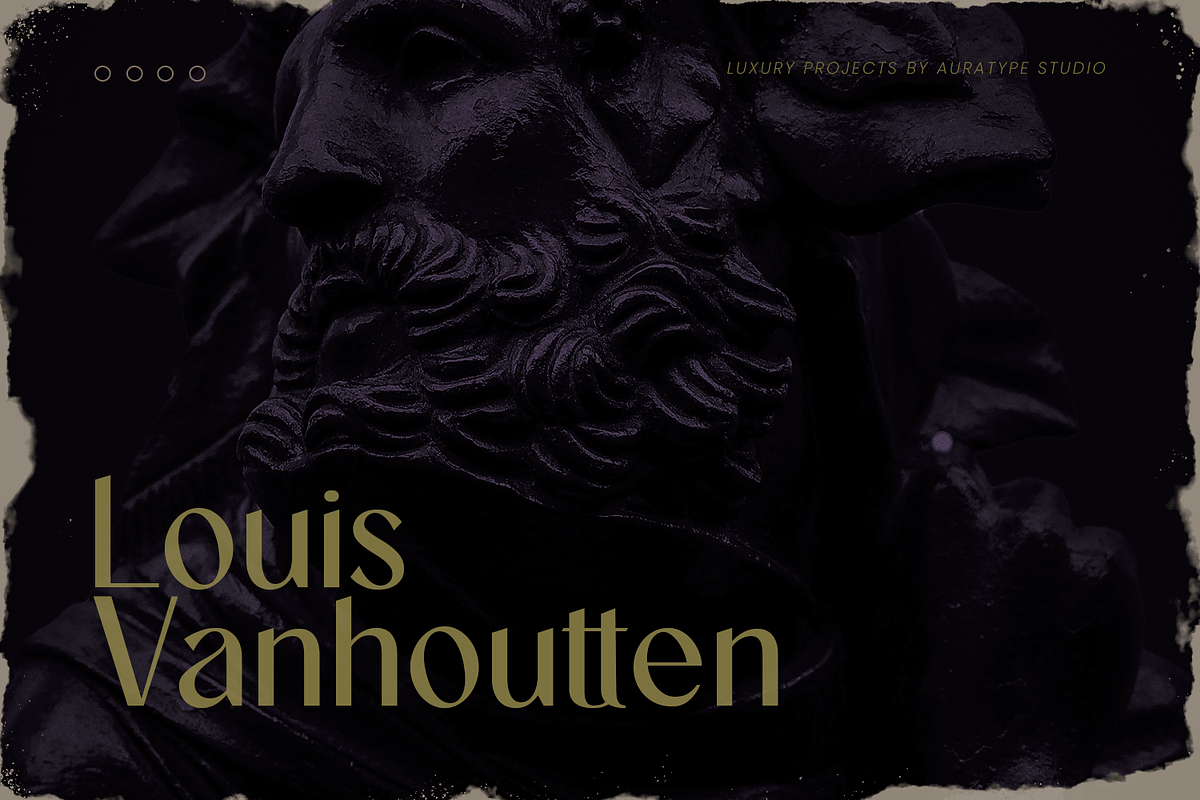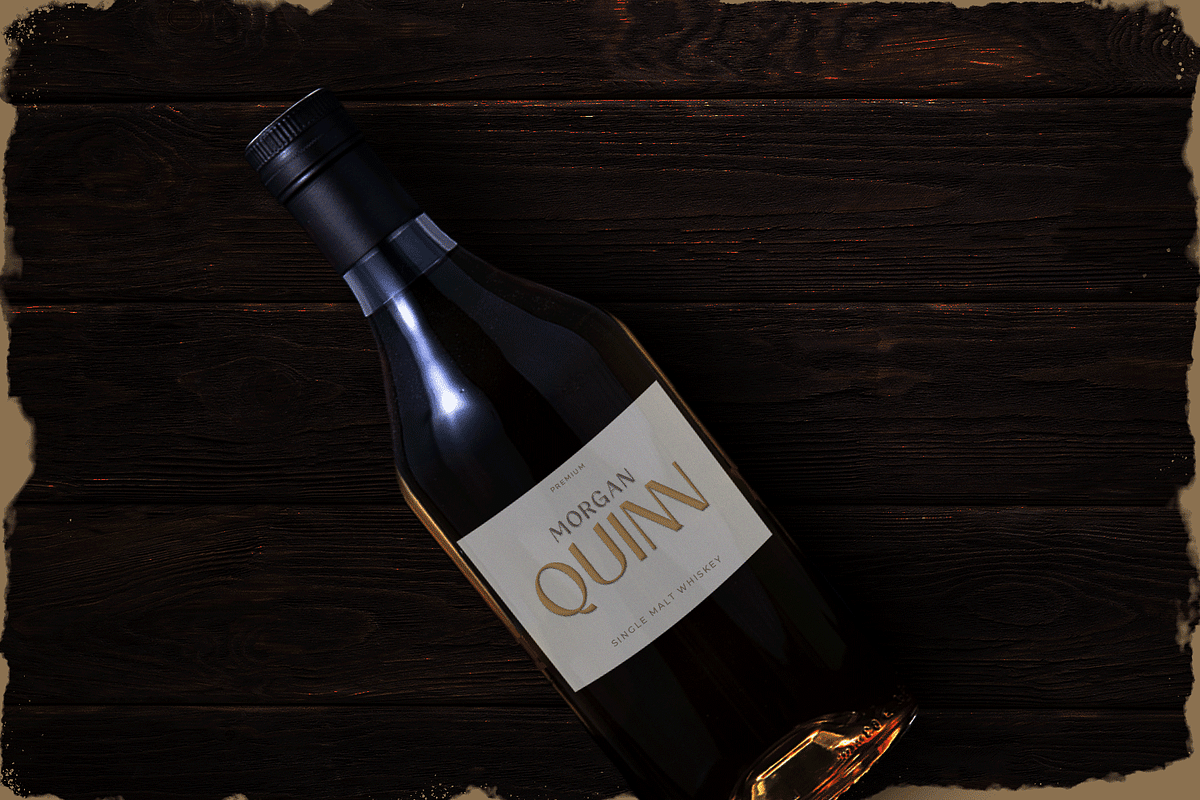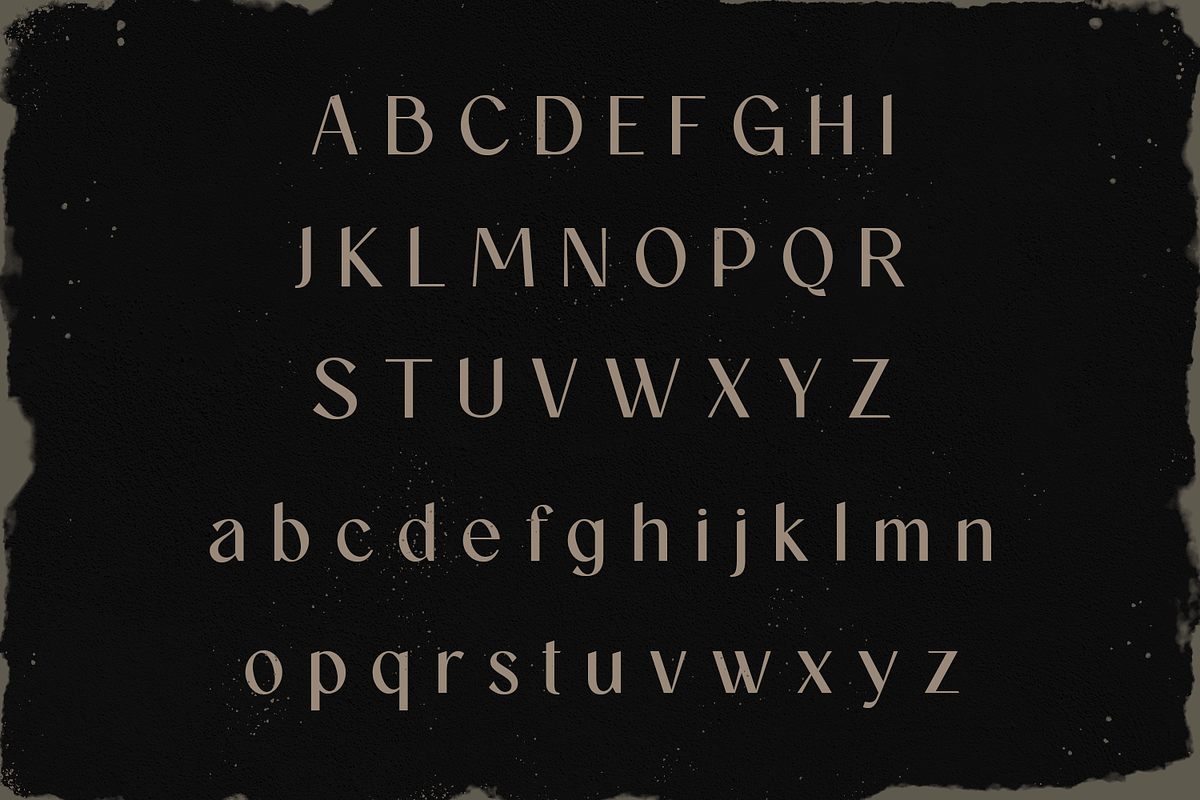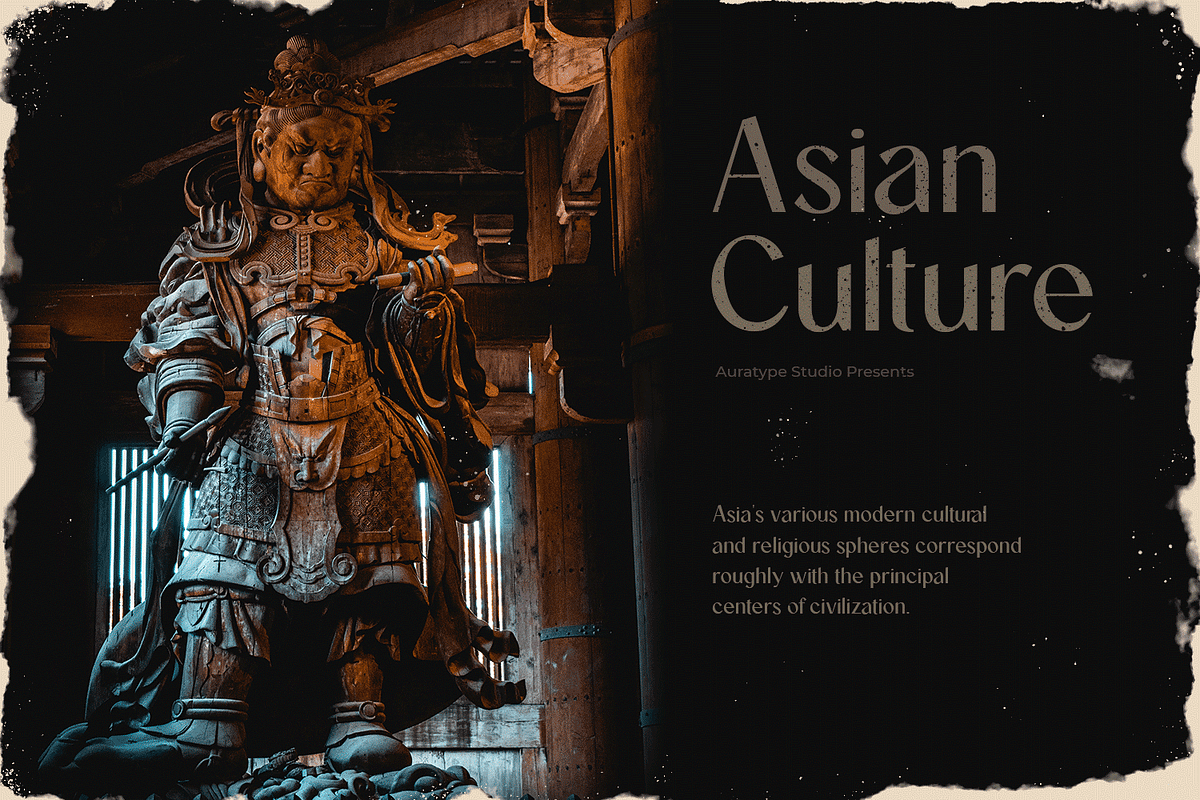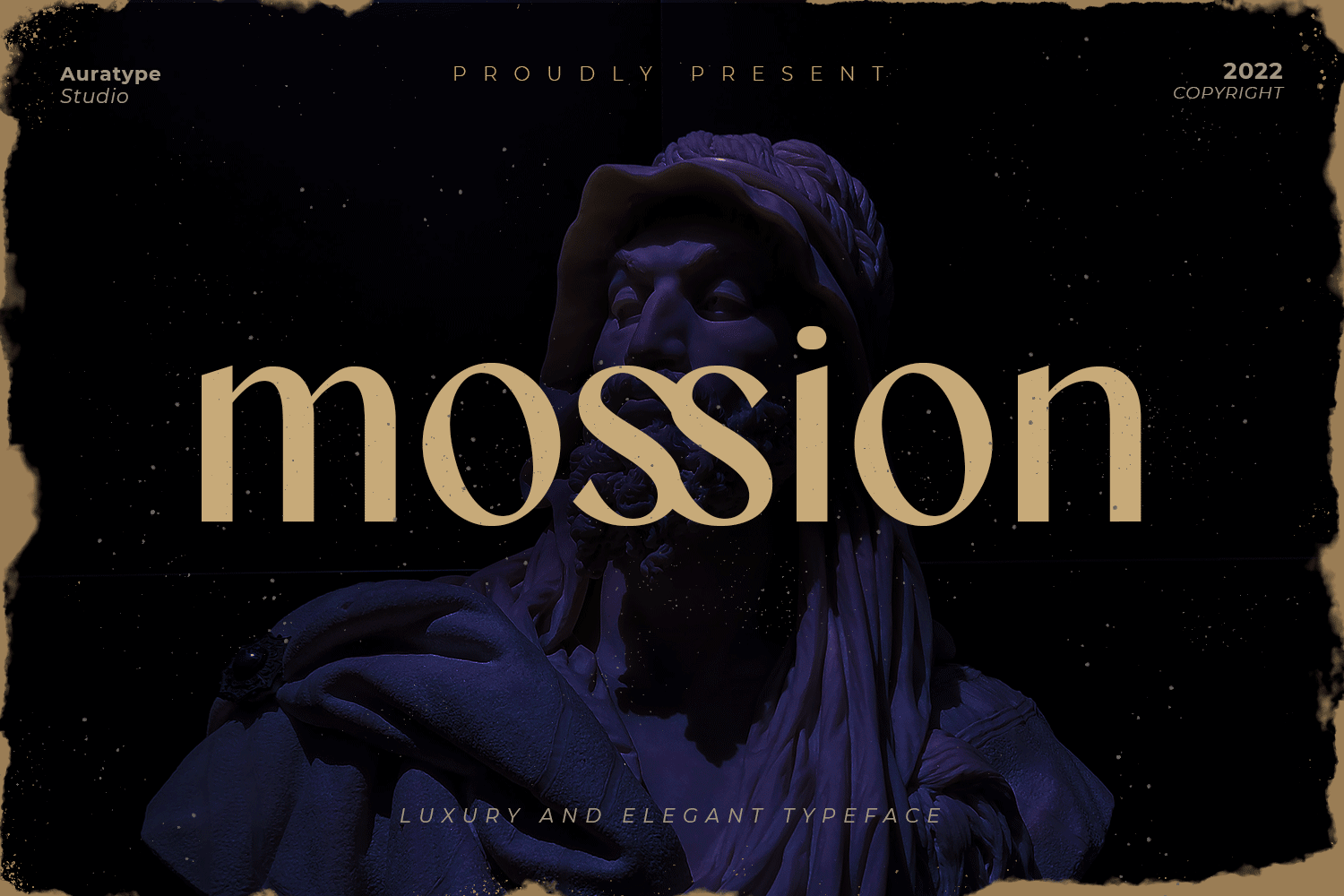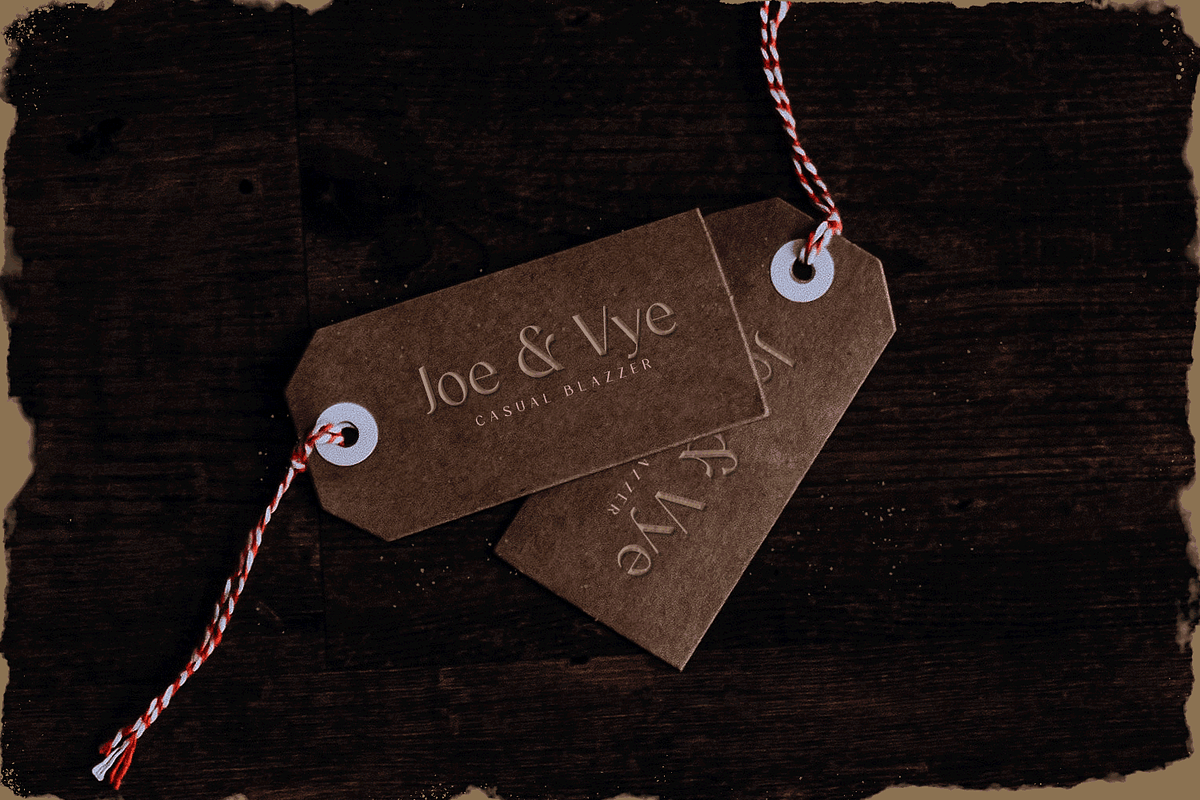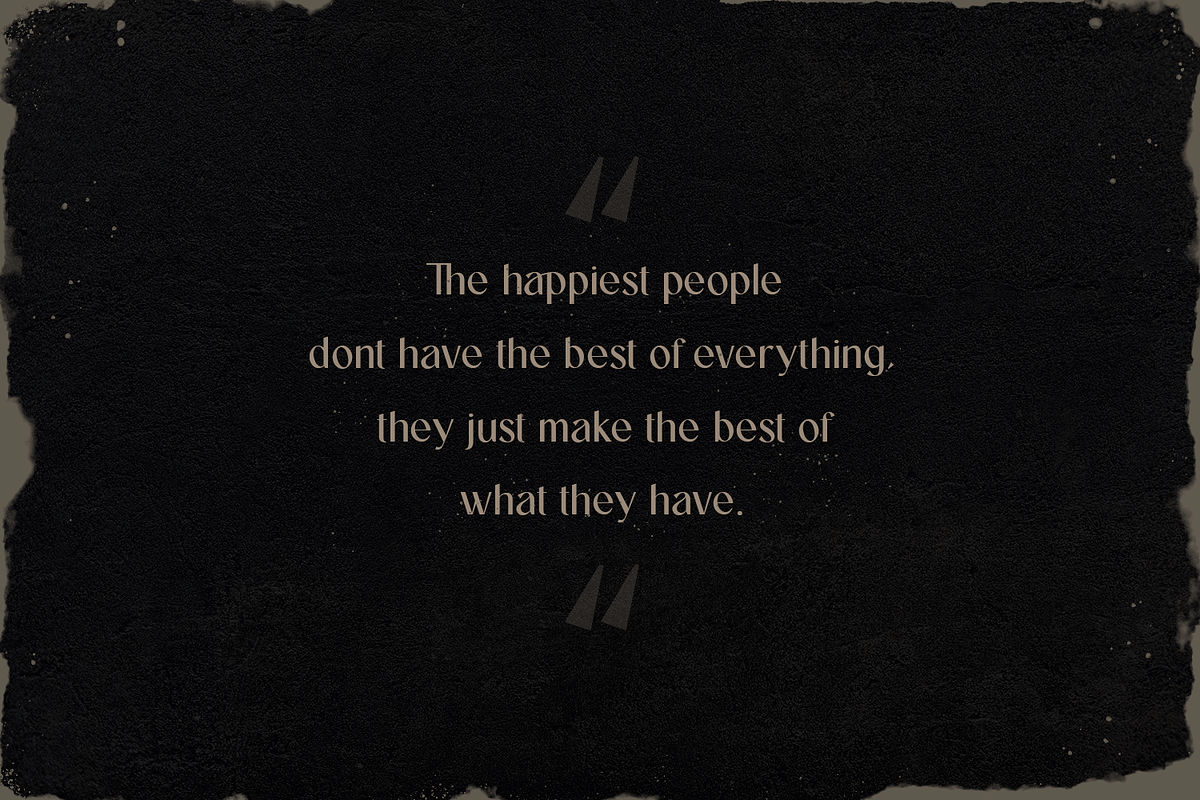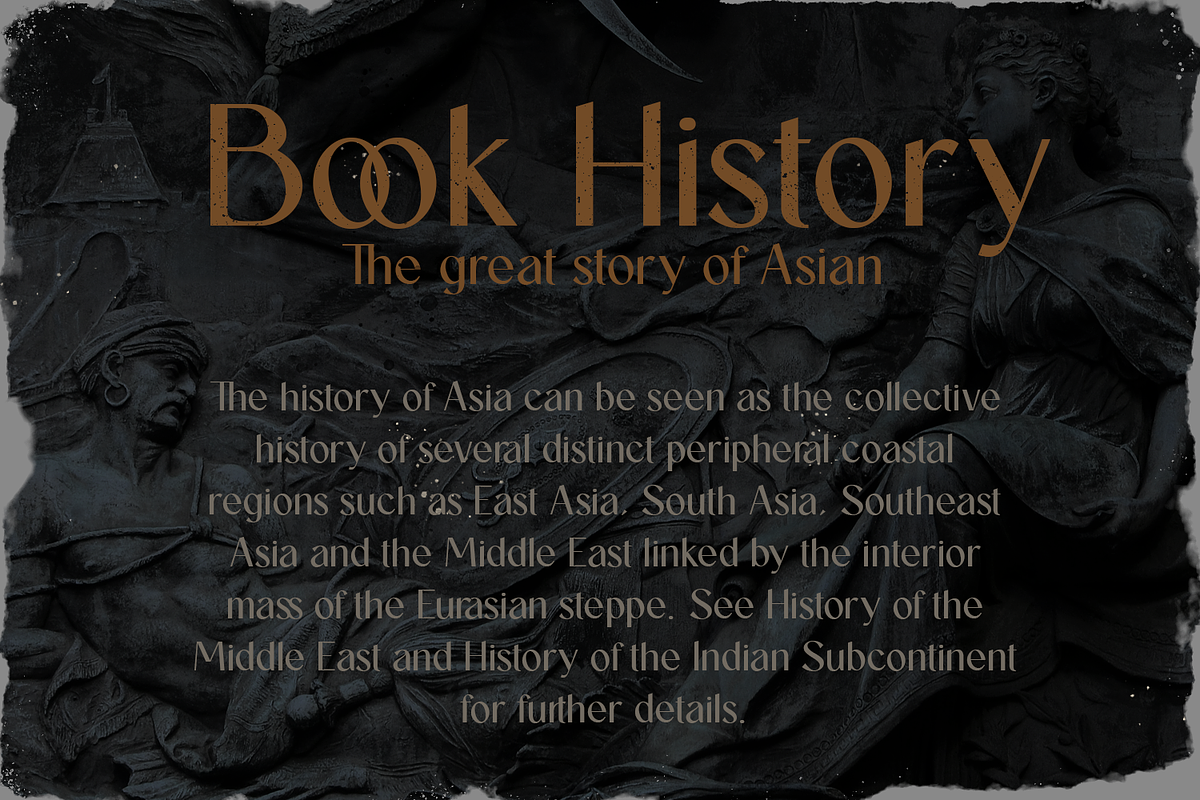
Mossion | Luxury and Elegant Font
Hi Folks! Lets explore your designs project with Mossion Fonts, this font comes with luxury and elegant style.
Mossion Font is minimal elegant typeface who inspired by simplicity shapes in luxury designs with more unique explored style like ligature. This font made from manual sketch with many many scratch then finished to font. This font also suitable to design like logo, book cover, label, banner, brand, sign, display design, packaging and more superb designs! Enyoy with our product and feel free contact us for support!